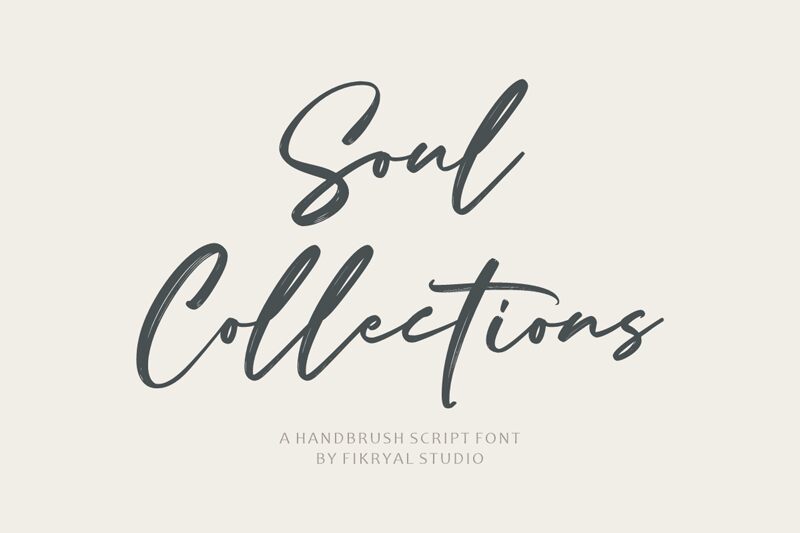
Introducing Soul Collections, the perfect font for adding a touch of elegance and personality to your next project. Created by the talented Muhamad Fikry Nuralif, this semi-light, handwritten script font offers a unique and authentic feel that is sure to catch the eye. Use it for everything from invitations and greeting cards to logos and branding materials. The flowing lines and delicate curves of Soul Collections will add a touch of sophistication to any project you have in mind. Whether you're designing for fashion, beauty or lifestyle brands, this versatile font is sure to make a lasting impression on your audience.